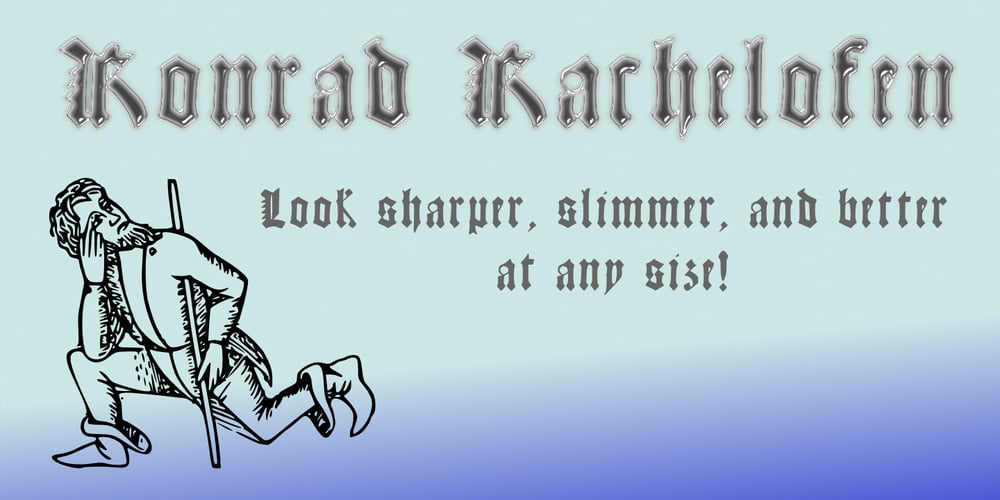
Konrad Kachelofen Font Family was designed by Shane Brandes and published by Proportional Lime. Konrad Kachelofen contains 1 styles and family package options. Konrad Kachelofen was a printer in the city of Leipzig beginning around 1483. He printed many works by contemporary authors and also many of the classics. He acquired an unusually large amount of typefaces for his shop, a place that included a wine bar and book store. This type face is based on Typ.11:340G GfT510 Gesamtkatalog der Wiegendrucke and is similar to Proportional Lime’s “Kachelofen” font. The major differences are that the whole miniscule set is slimmer and the majuscule set has different style glyphs and this face was used solely for titles and section headings because of its sharper and clearer appearance at large point values. Konrad probably died in 1529 after passing his business on to his son-in-law Melchior Lotter, who also went on to fame as an industrious and illustrious printer.